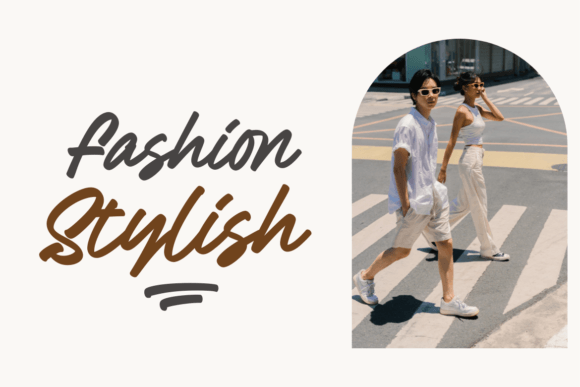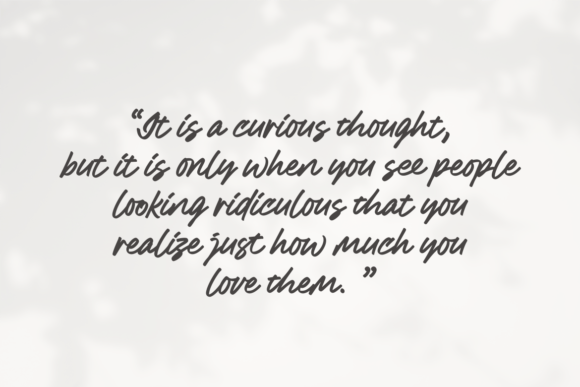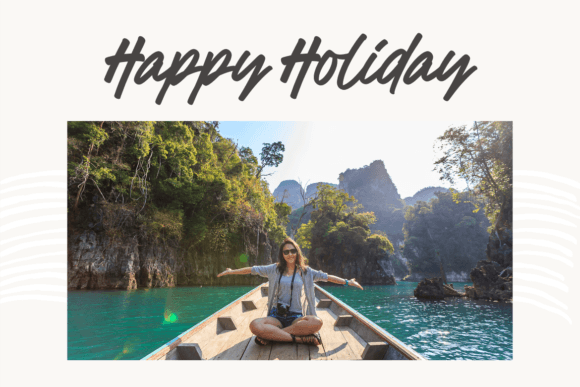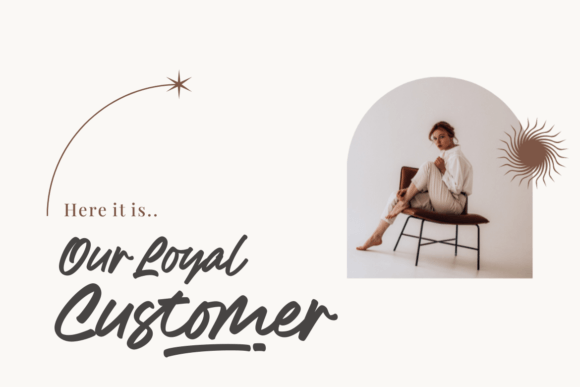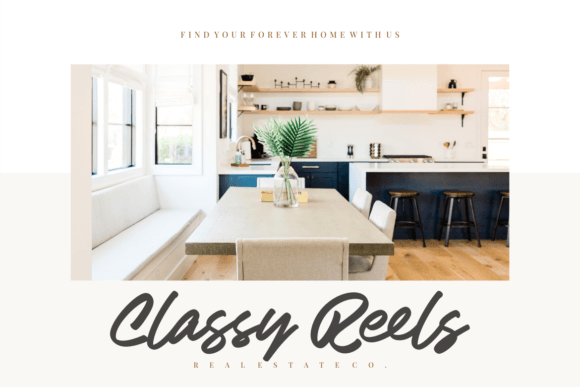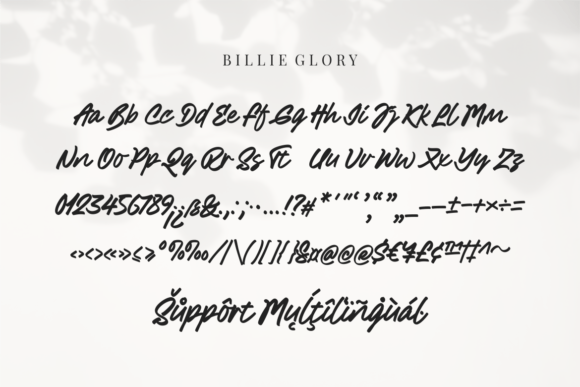
The Quest for the Perfect Font: Discovering Billie Glory
I’ll never forget the time I was working on a branding project for a client who wanted a elegant, yet modern script font. I spent hours scouring the internet for the perfect font, but nothing seemed quite right. That was until I stumbled upon Billie Glory, a stylish handwritten script font that exceeded my expectations. In this article, I’ll share my experience with Billie Glory, its features, and how to make the most of it in your designs.
An Honest Review of Billie Glory
- 💫 Elegant and stylish handwritten script font
- 🌈 Highly versatile for various design projects, from Instagram posts to DIY crafts
- 🤔 Limited availability of certain characters, such as ligatures or alternative glyphs
- ⚠️ May require some manual adjustments for optimal kerning and spacing
The Story Behind Billie Glory
Billie Glory was designed by a team of typographers who wanted to create a font that would capture the essence of elegance and sophistication. Inspired by traditional calligraphy and modern script fonts, Billie Glory was carefully crafted to provide a unique and stylish look for designers and crafters. The font’s creator aimed to make it versatile and easy to use, with a range of OpenType features that would make it suitable for various design projects.